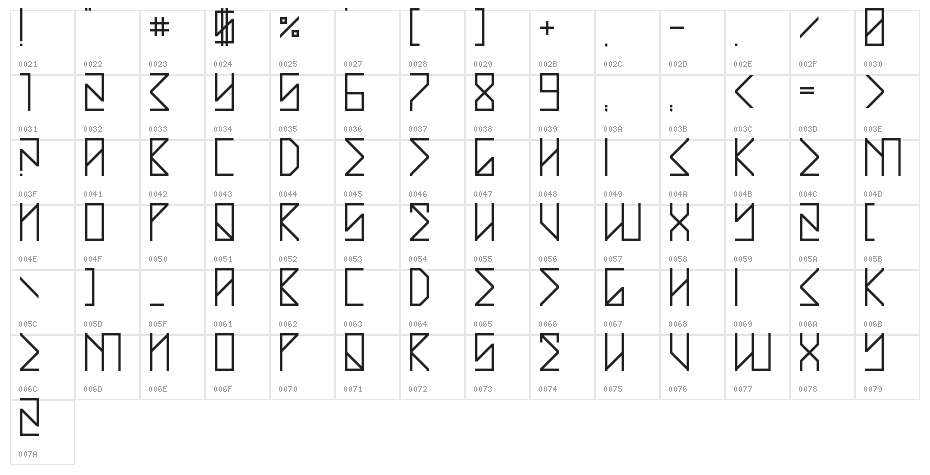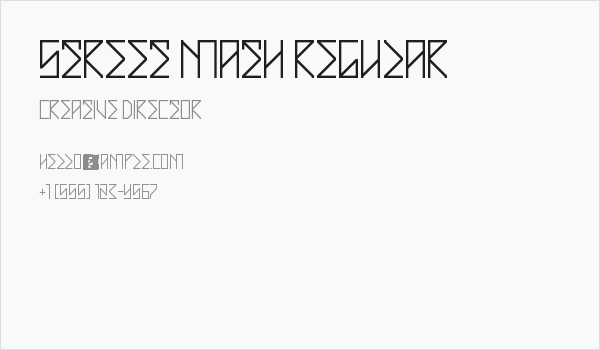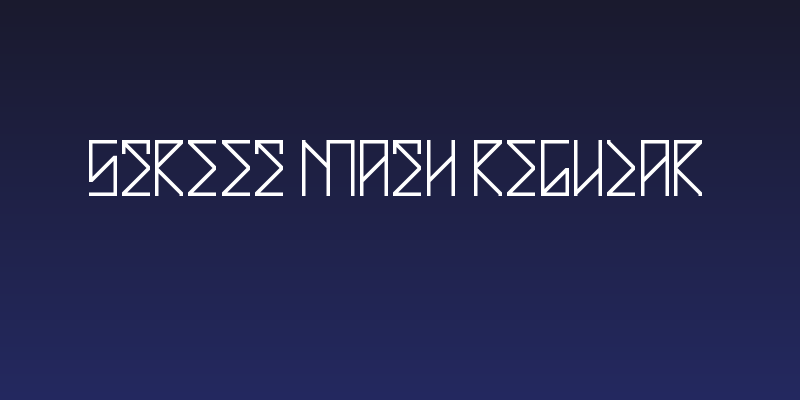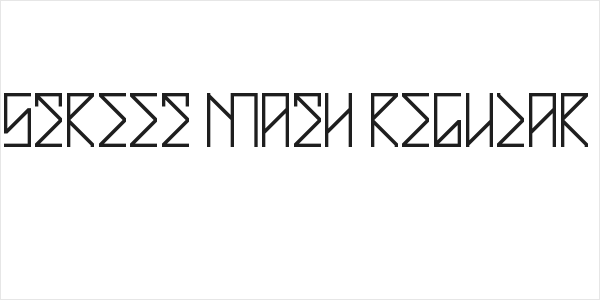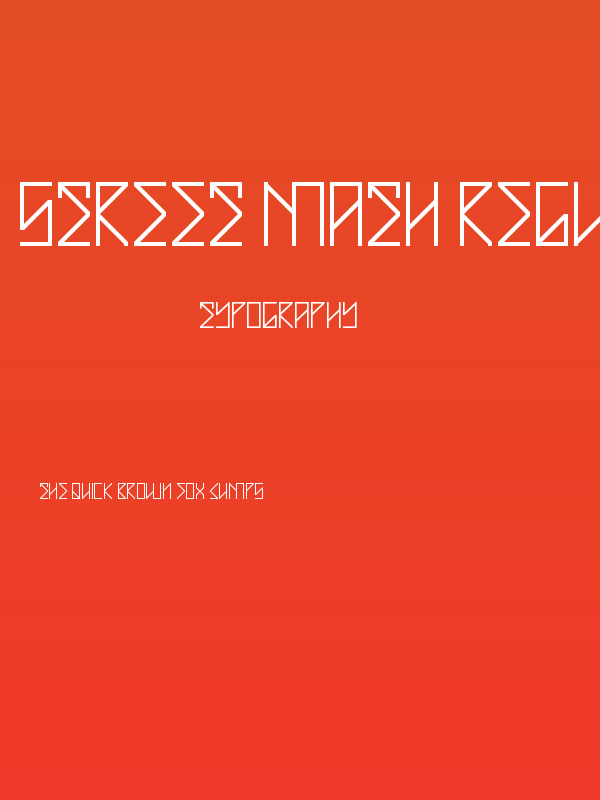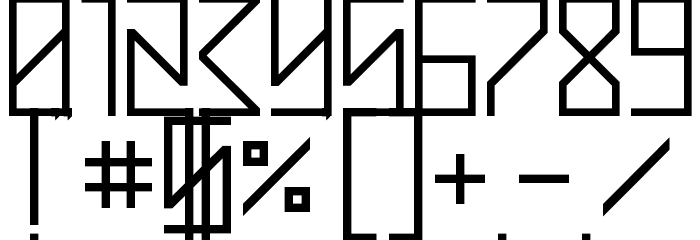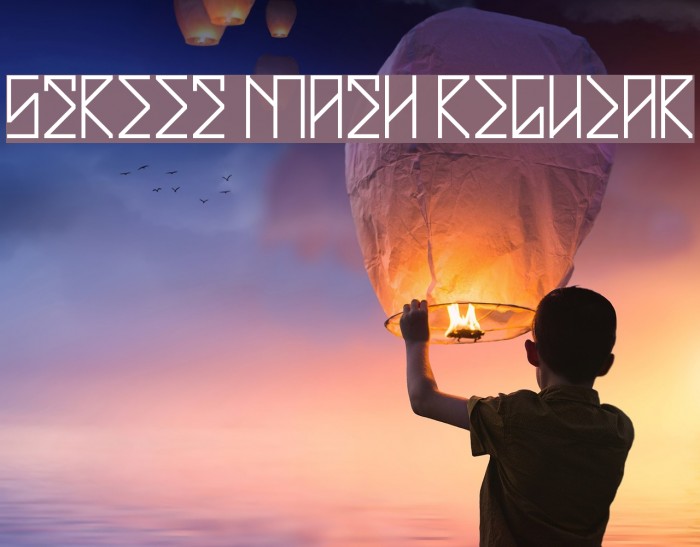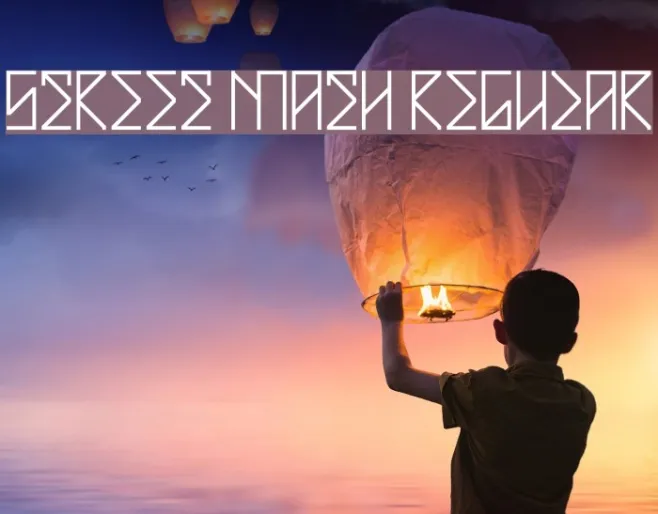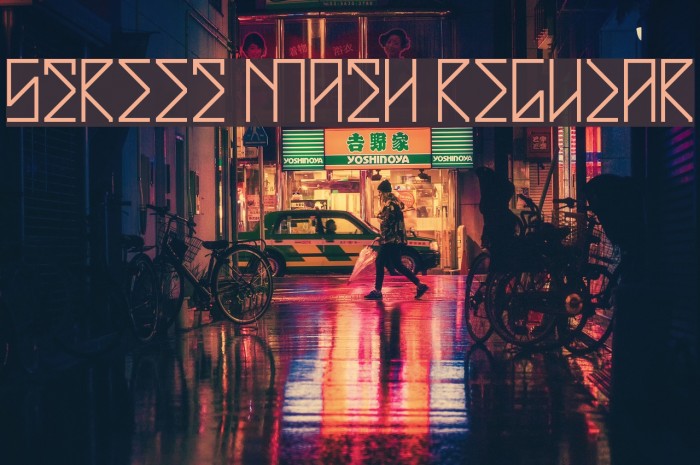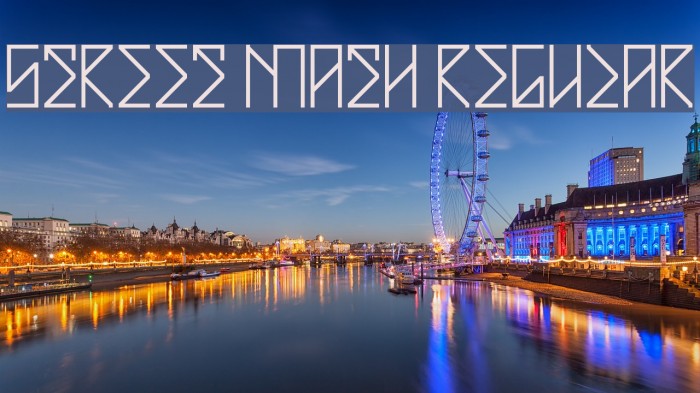
Street Math Regular Font
Street Math Regular Description
This font features a geometric and angular design, characterized by sharp edges and a modern, urban aesthetic. The characters are constructed with straight lines and acute angles, giving it a futuristic and technical appearance. The uppercase and lowercase letters maintain a consistent style, with a uniform stroke width that contributes to its clean and structured look. The numerals and special characters follow the same design principles, ensuring a cohesive visual identity across all glyphs. This font is ideal for projects that require a bold and distinctive typeface with a contemporary edge.
| Proposed Projects | Ideal for branding, posters, album covers, and digital media that require a bold, futuristic look. |